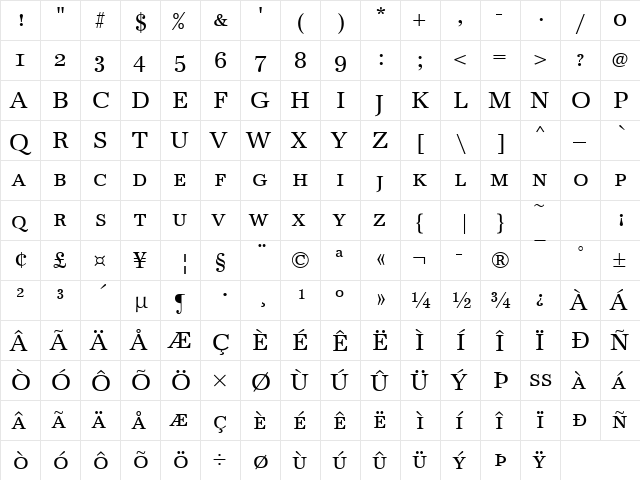
Becker Antiqua Caps Regular
Design Context for Becker Antiqua Caps Typeface
Becker Antiqua Caps offers clean, dependable letterforms without strong stylistic allegiance, making it a practical choice for designers who need flexibility.